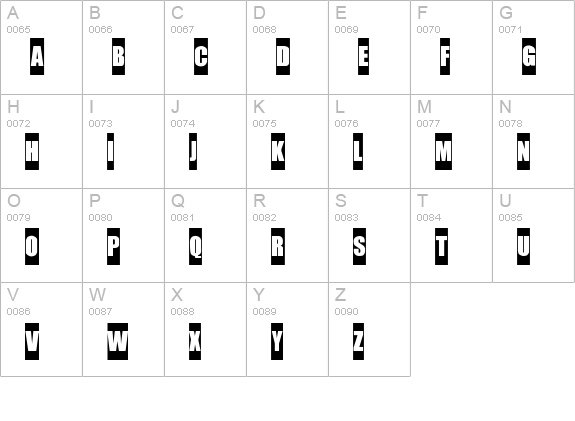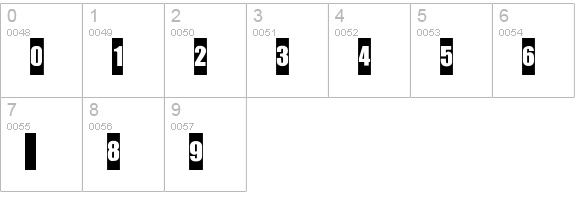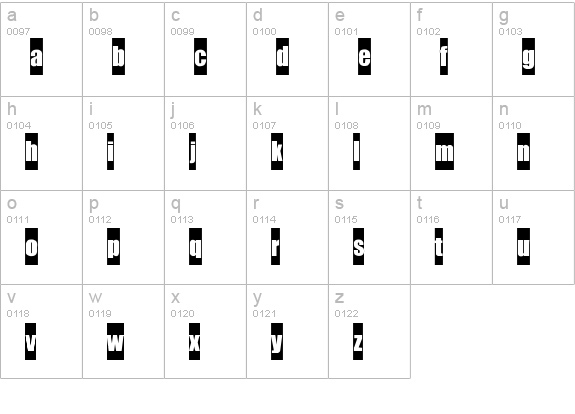
Capsle Bold Font Details
Capsle Bold is a strong, high-contrast variant in the Capsle typeface family \xE2\x80\x94 well suited to headlines, attention-grabbing titles, and strong calls-to-action.
Capsle Bold font is a modern and stylish typeface that exudes confidence and sophistication. With its bold and eye-catching design, Capsle Bold is perfect for making a statement in your designs. Whether you are creating posters, logos, or branding materials, this font will surely stand out and leave a lasting impression. The clean lines and sharp edges of Capsle Bold make it versatile and suitable for a wide range of projects, from digital to print. Its bold and commanding presence will ensure that your message is conveyed with impact and authority. Best of all, Capsle Bold font is available for free download at FontsMarket.com. This means you can easily access this stunning typeface and use it in your projects without any cost. Don't miss out on the opportunity to enhance your designs with the bold and modern aesthetic of Capsle Bold font. Download it now and take your creations to the next level!